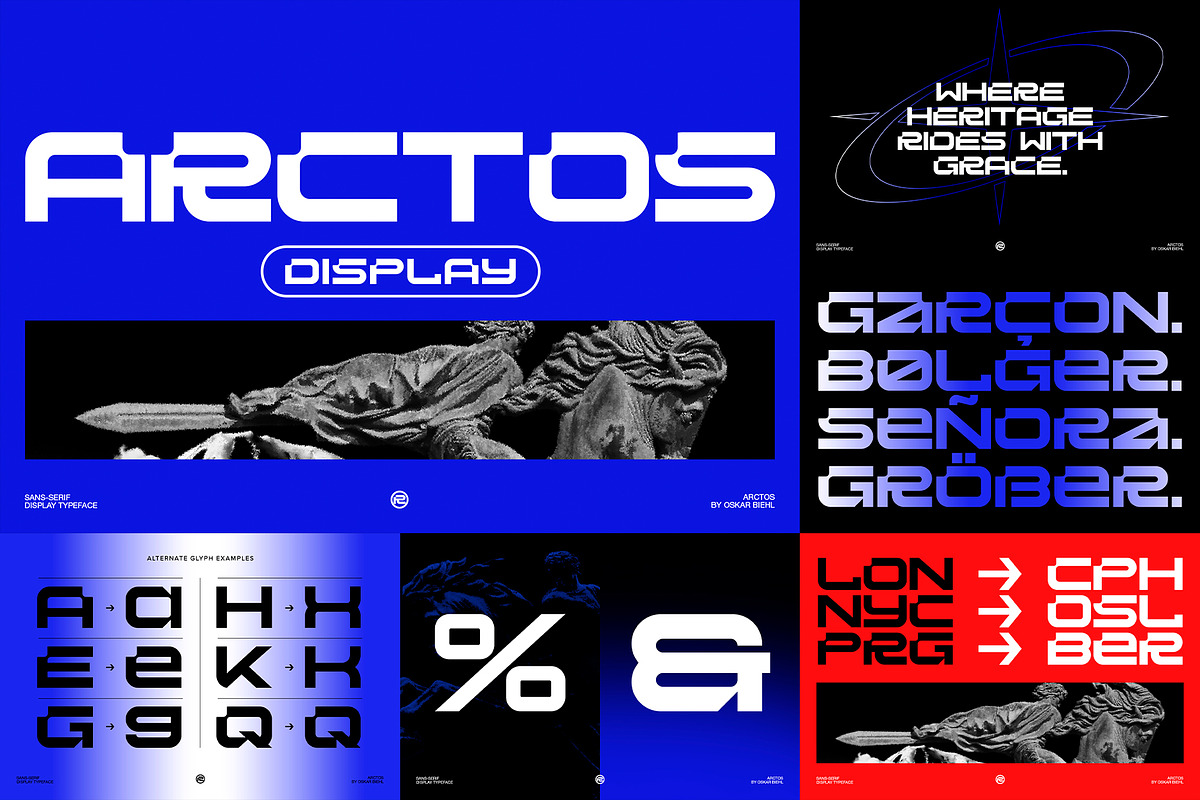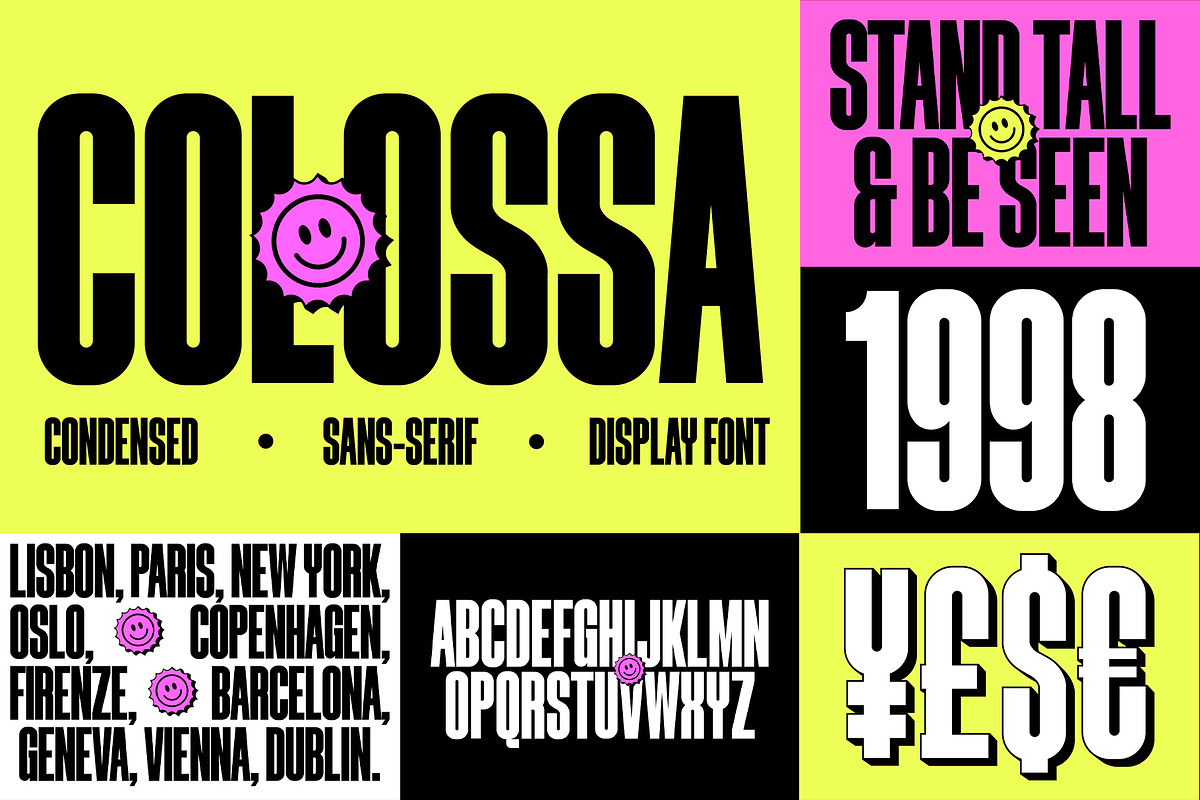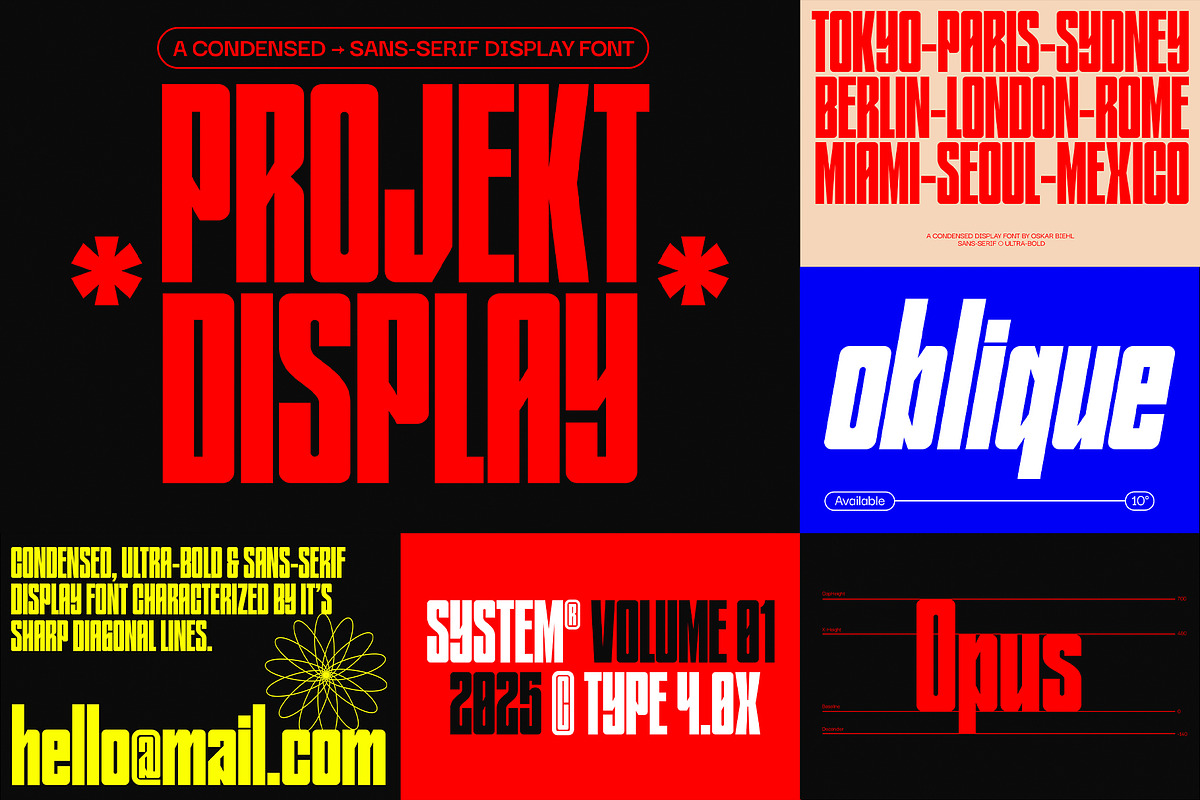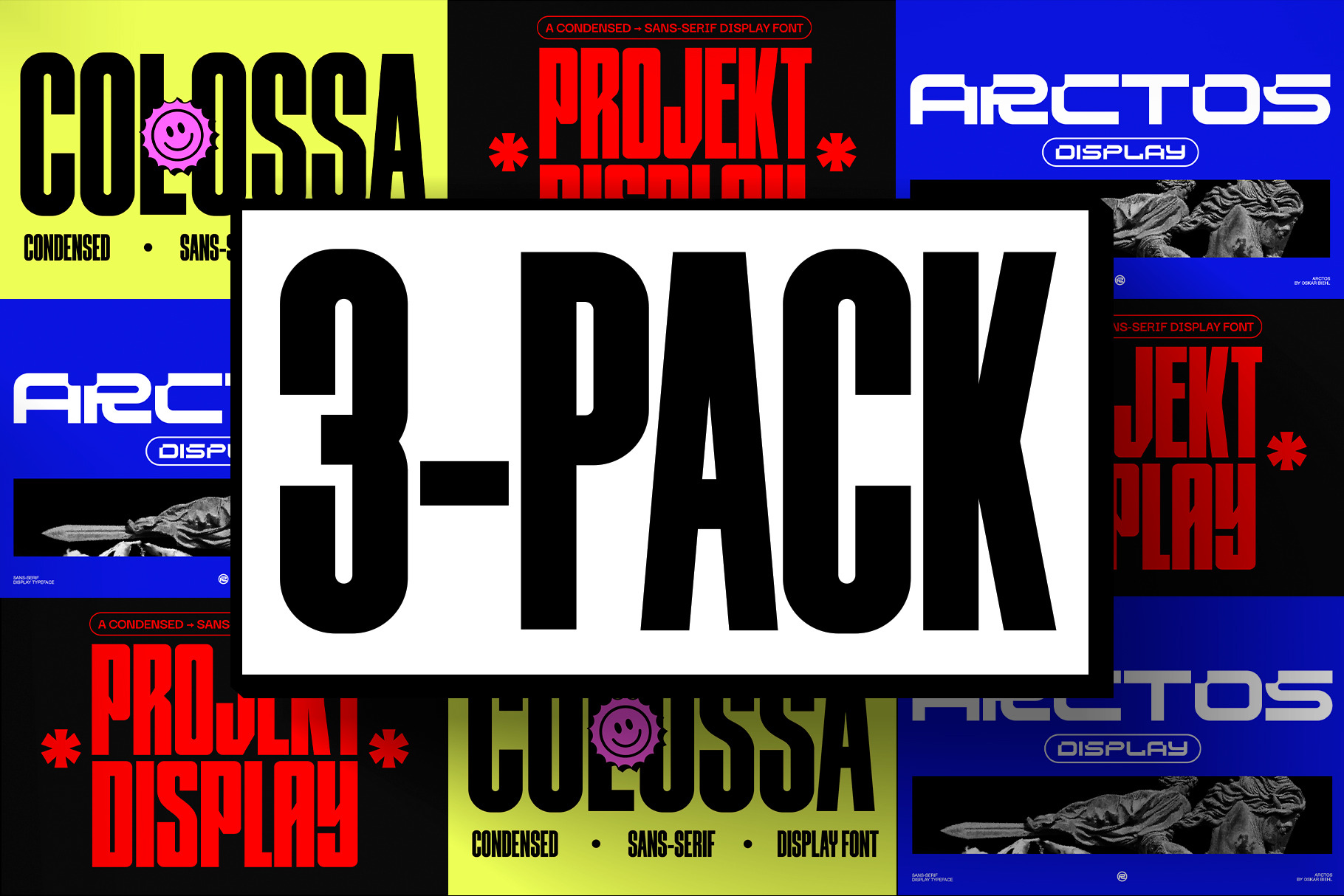
3 Unique Display Fonts Pack
This bundle features 3 unique display fonts, perfect for bold headlines, eye-catching posters, and standout branding projects.
Fonts included:
- ARCTOS
- COLOSSA
- PROJEKT DISPLAY
Arctos Features
- Single-Case Characters with Stylistic Alternates from Both Cases
- Numbers, Symbols, and Punctuation
- Range of Latin Extended Characters
COLOSSA Features
- Uppercase Letters
- Lowercase Letters
- Numbers, Symbols, and Punctuation
- Range of Latin Extended Characters
- Oblique Style
PROJEKT DISPLAY Features
- Uppercase Letters
- Lowercase Letters
- Numbers, Symbols, and Punctuation
- Range of Latin Extended Characters
- Italic / Slanted Available